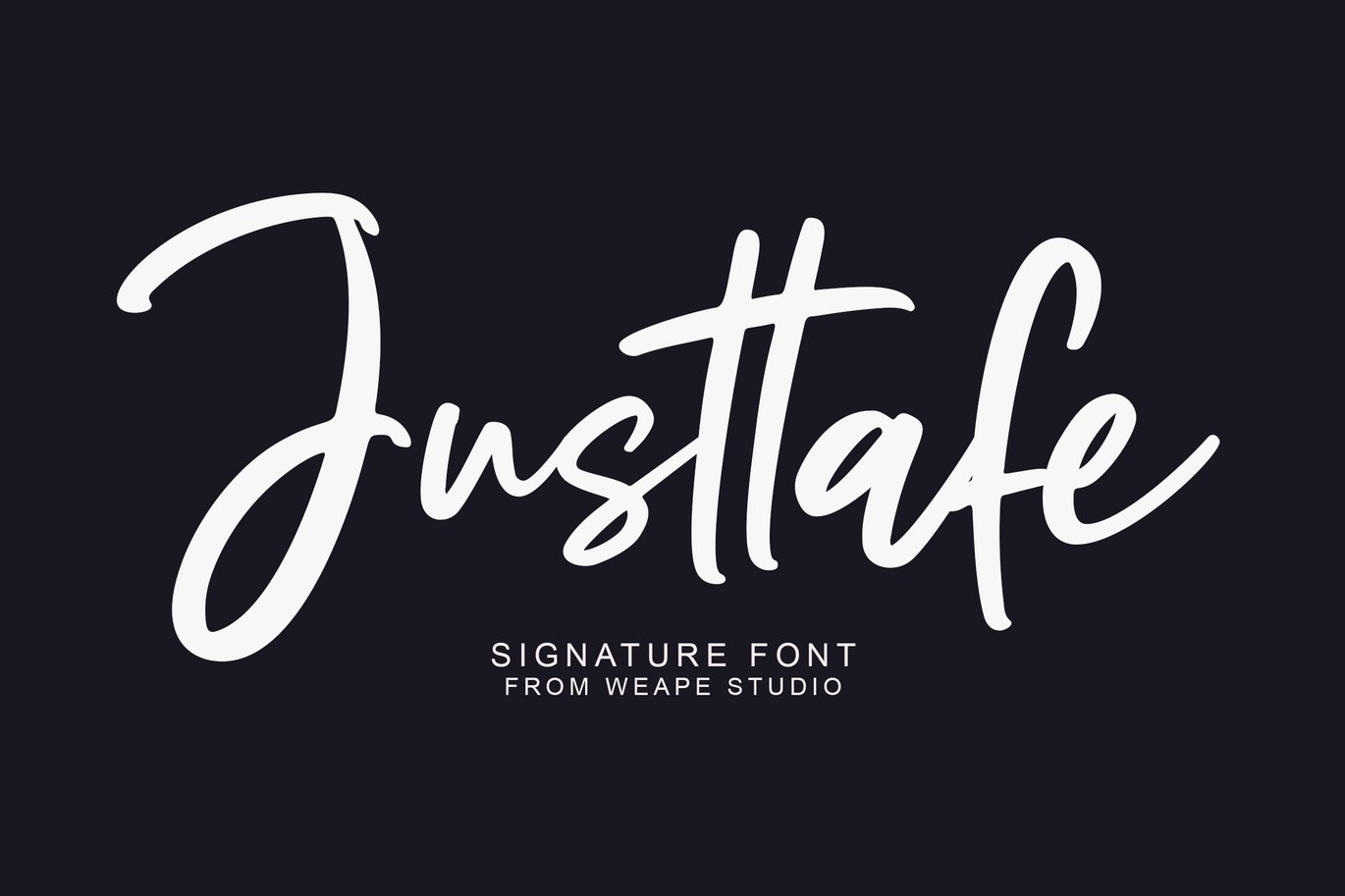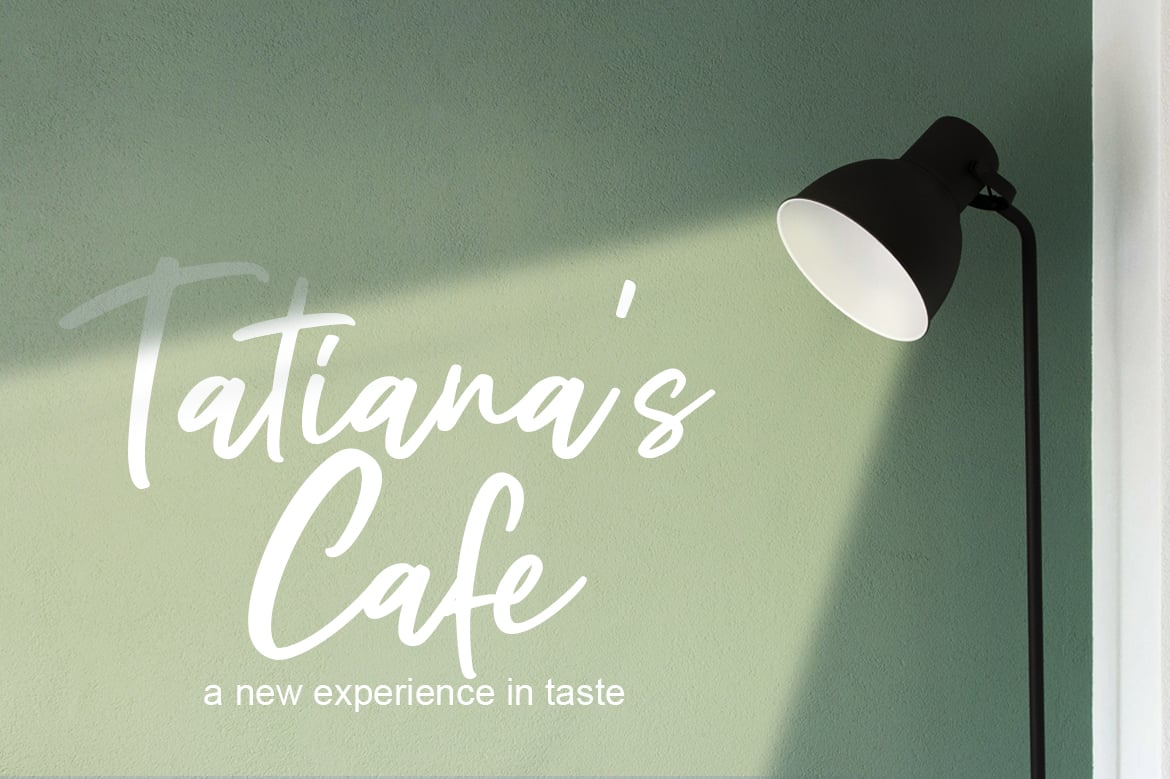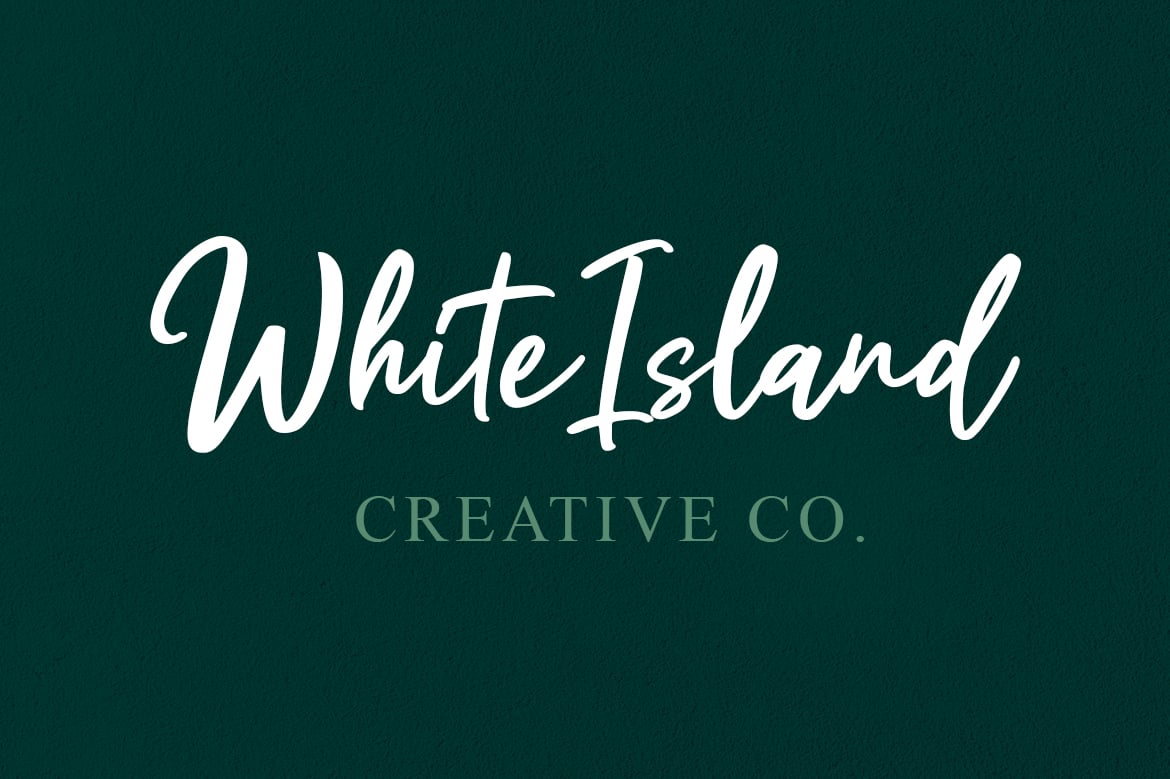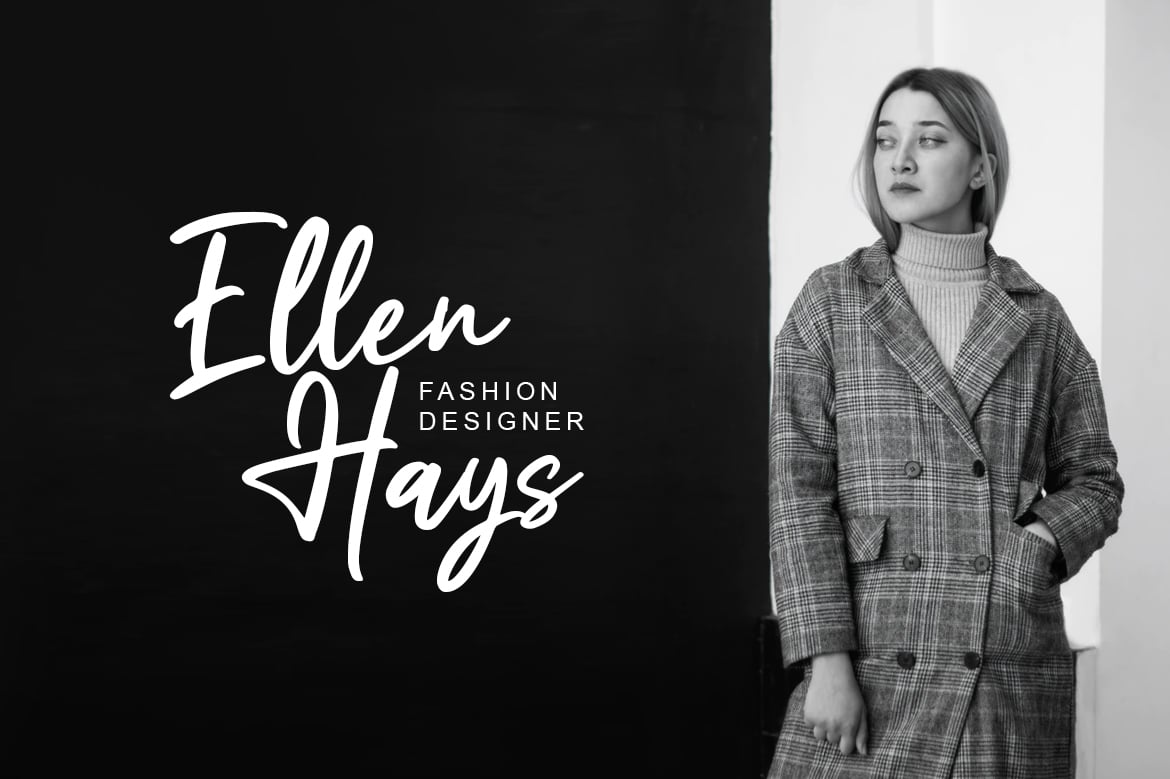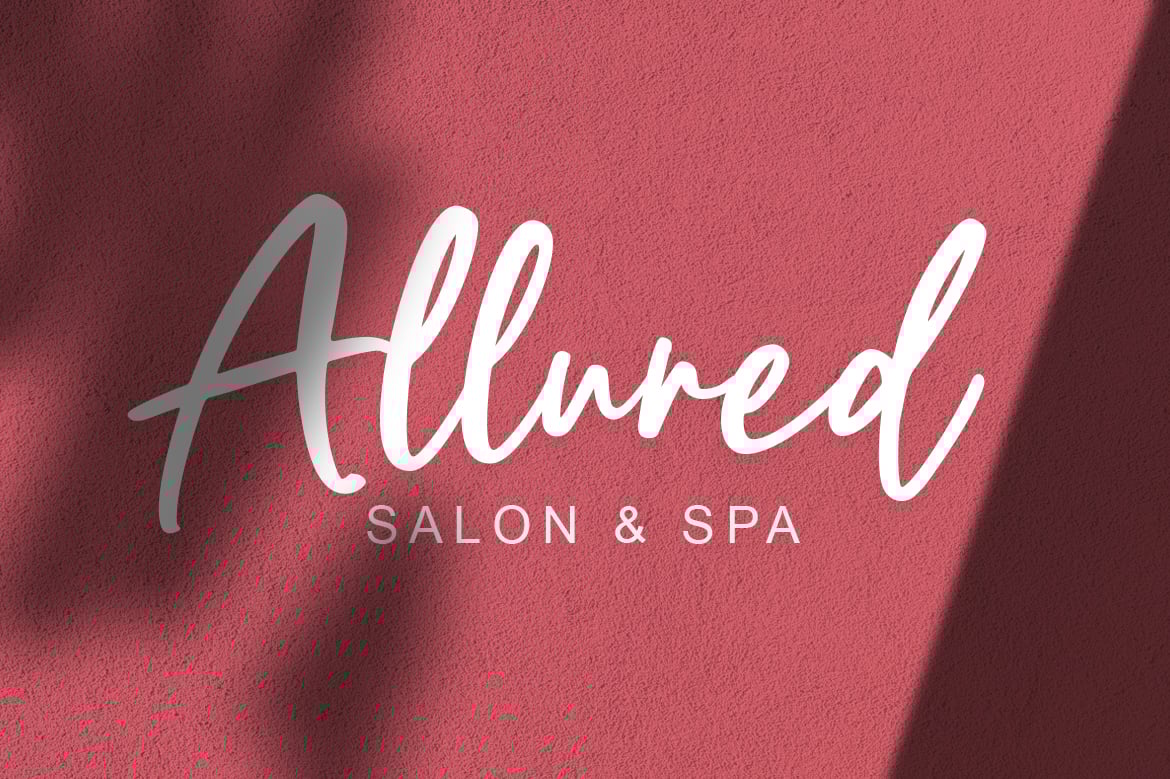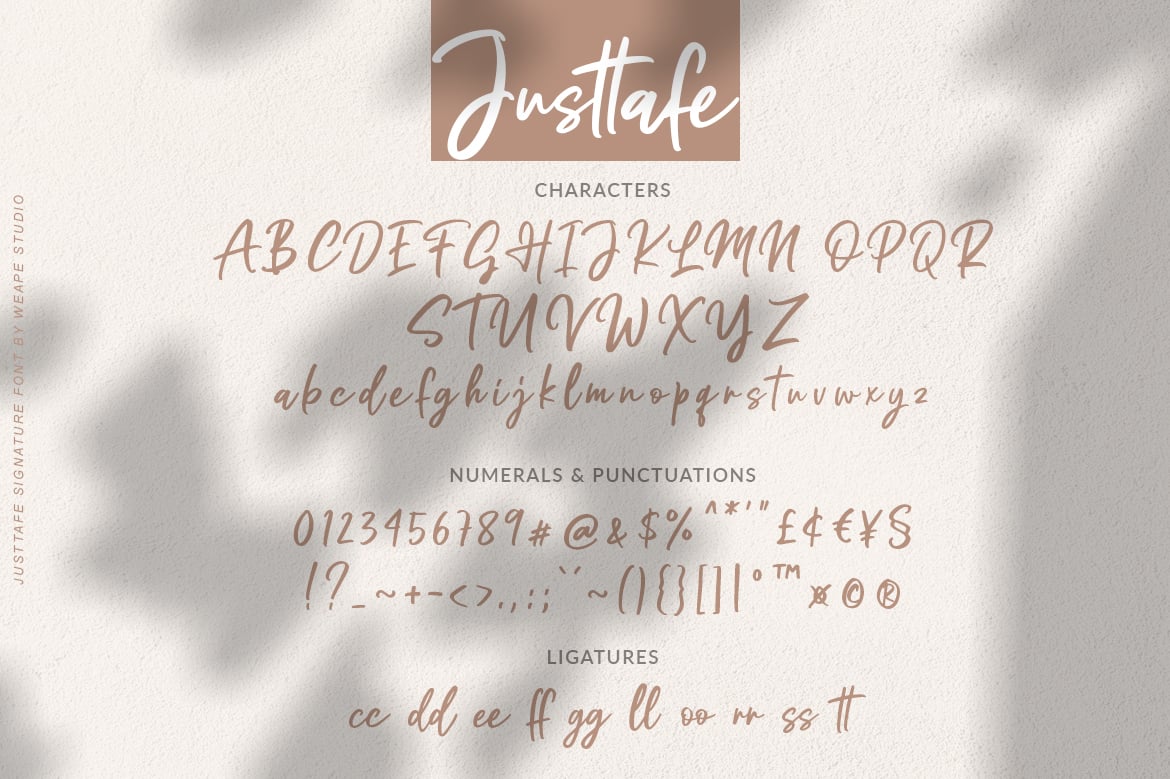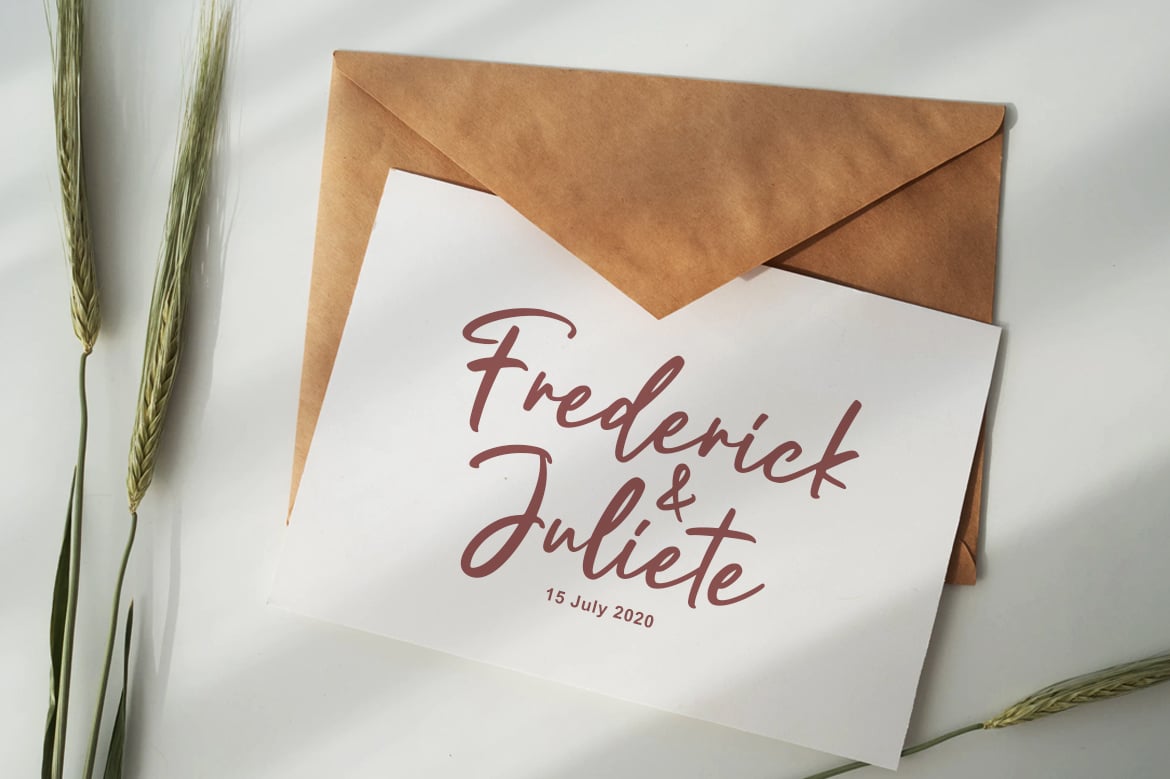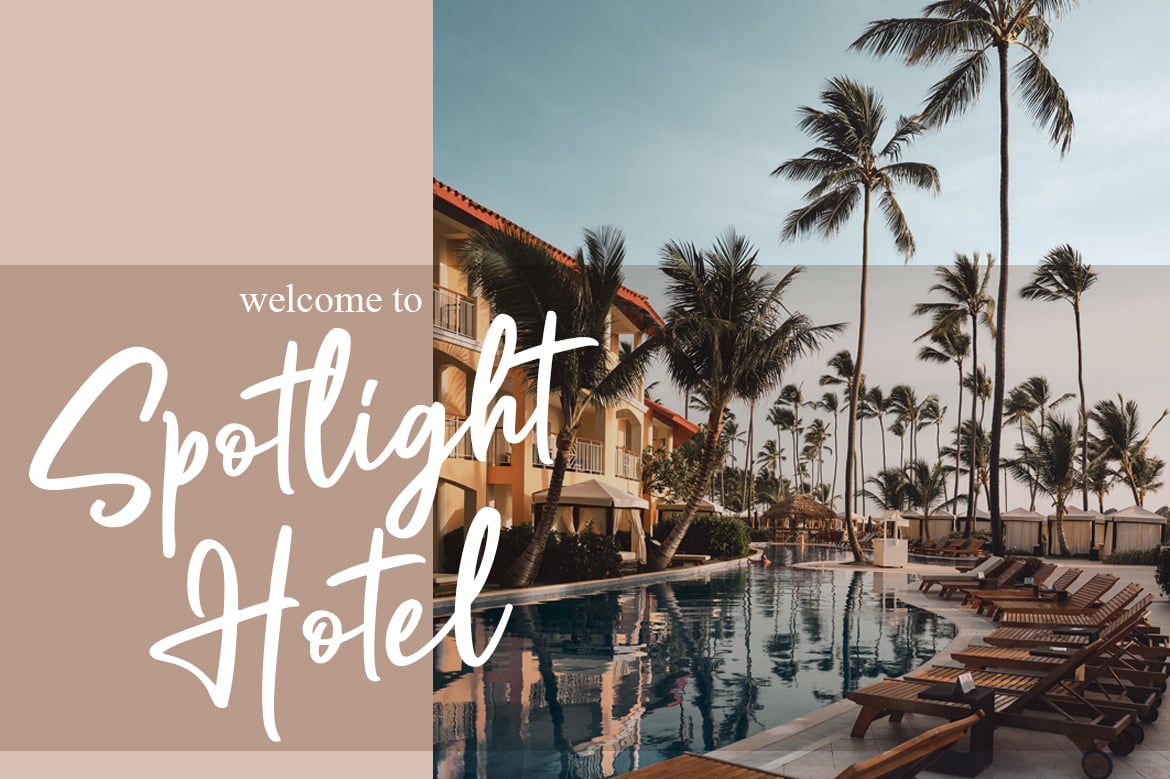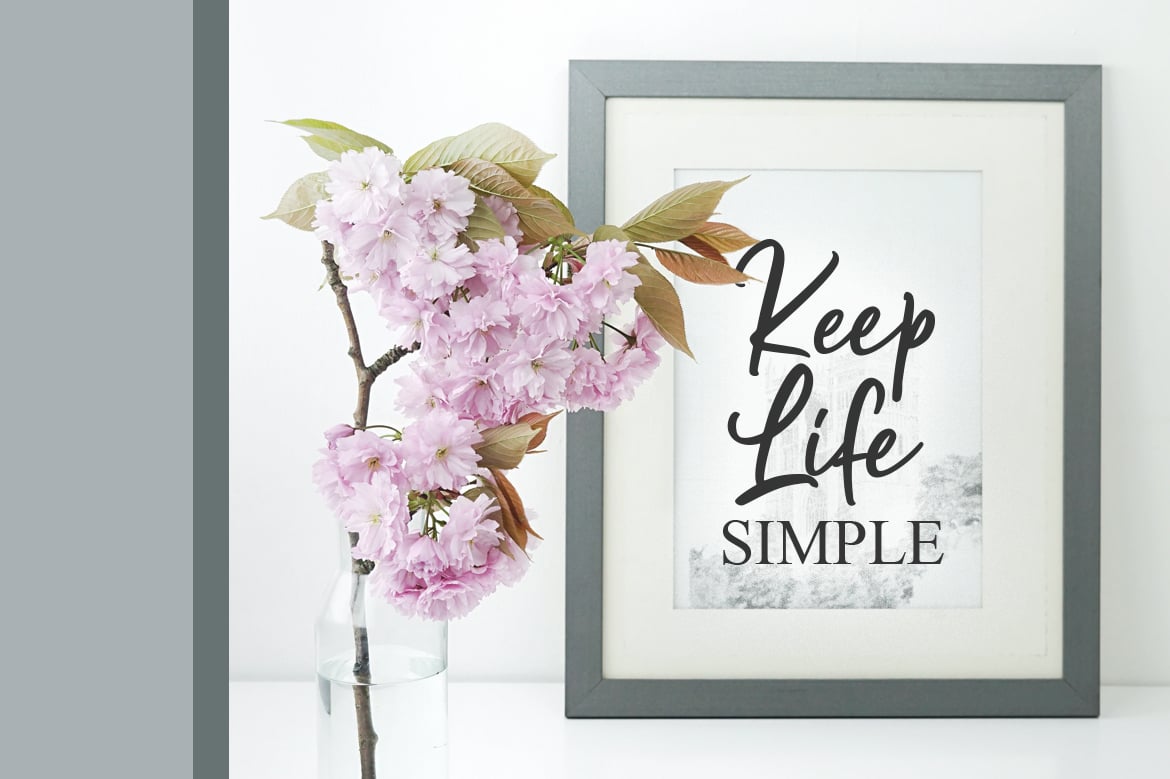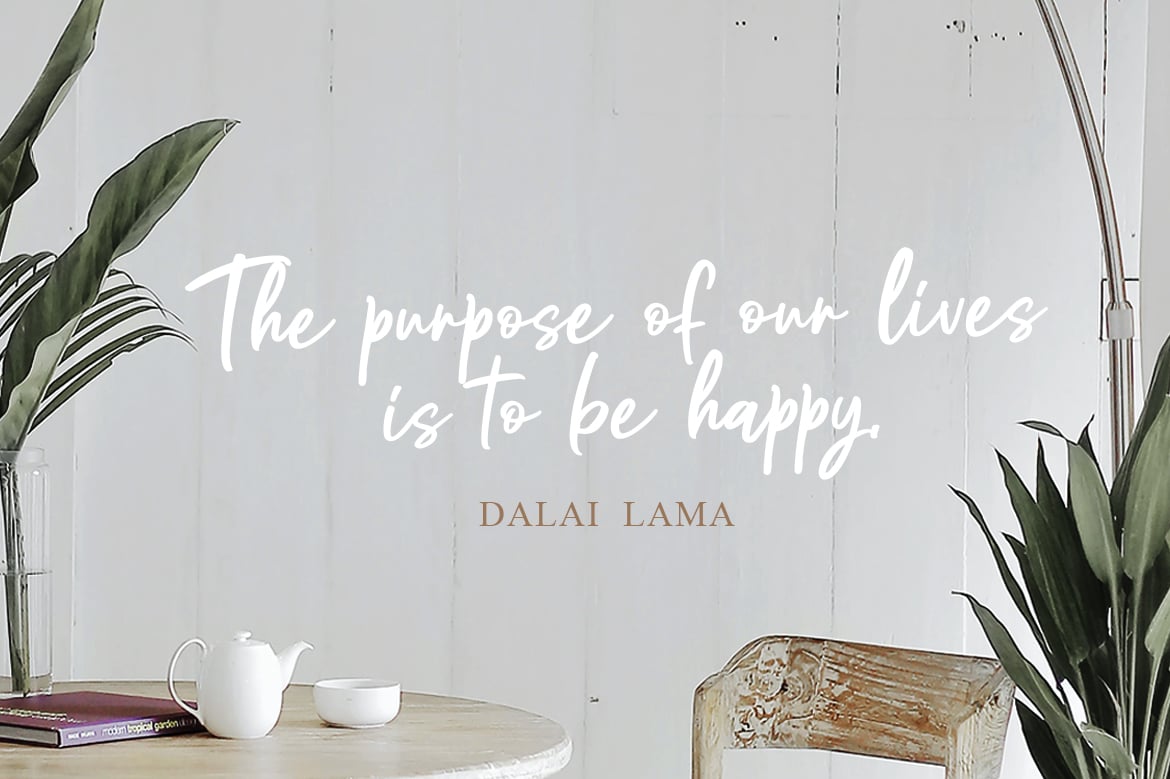
Justtafe – Signature Font
Introducing the new signature script font called Justtafe. With unique fast hand sweep style for your daily and project needs ex: logo, fashion, apparel, photography, watermark, quotes, blog header, poster, wedding, invitation, stationery, branding, letter, etc.
And Justtafe comes with uppercase, lowercase, numerals, punctuations, ligatures, and multilingual support.